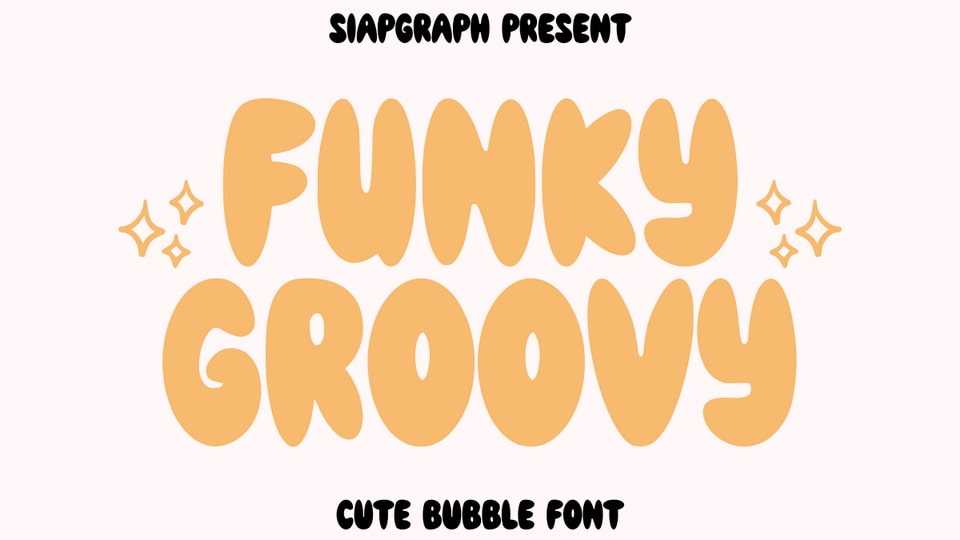
Download Funky Groovy font, a playful bubble typeface perfect for adding a touch of retro fun to your designs with its rounded, bouncy letters and cheerful style.
Designer: SiapGraph